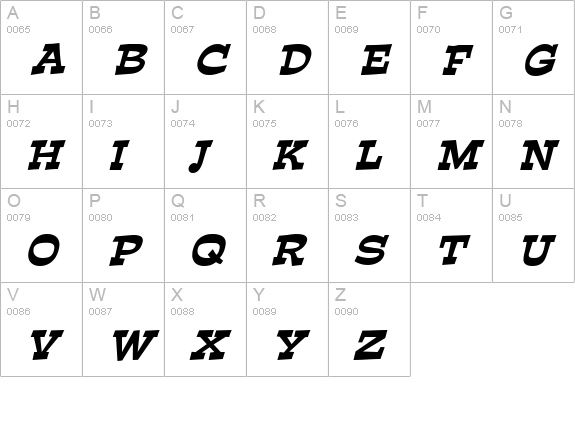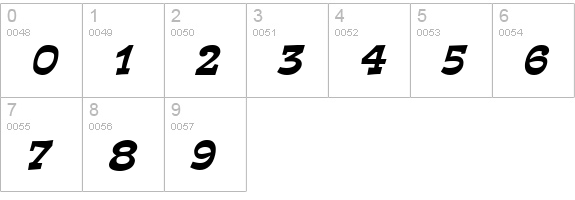
Introducing Expose BoldItalic font, a sleek and modern typeface designed to make a bold statement with a touch of elegance. This eye-catching font exudes confidence and sophistication, perfect for adding a stylish flair to any design project. The combination of bold strokes and italicized characters creates a unique and captivating look that will surely stand out. Best of all, Expose BoldItalic font is available for free download at FontsMarket.com. Whether you're working on a branding project, a poster design, or any other creative endeavor, this versatile font is sure to elevate your work to the next level. Don't miss out on the opportunity to add this stunning typeface to your font collection today. Download Expose BoldItalic font now and let your creativity shine!